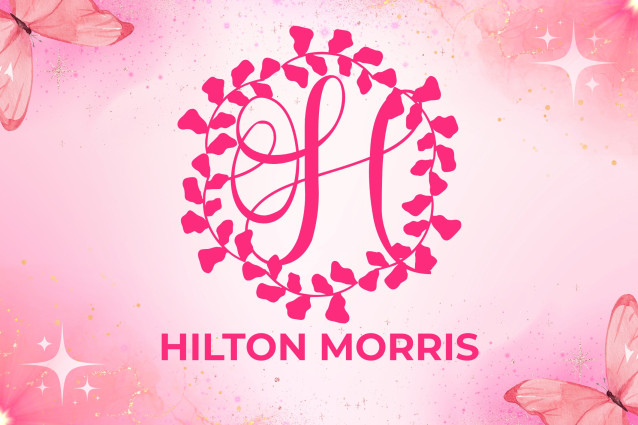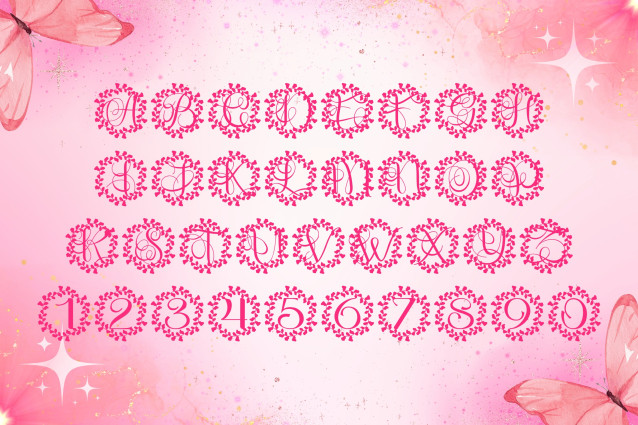
Wreathory Font
Wreathory Monogram Font is a graceful serif monogram font encircled by a refined botanical wreath. Designed for timeless elegance, this font is perfect for personalizing gifts, wedding stationery, logos, and home decor. Each letter sits proudly within a leafy wreath, combining classic formality with natural charm.